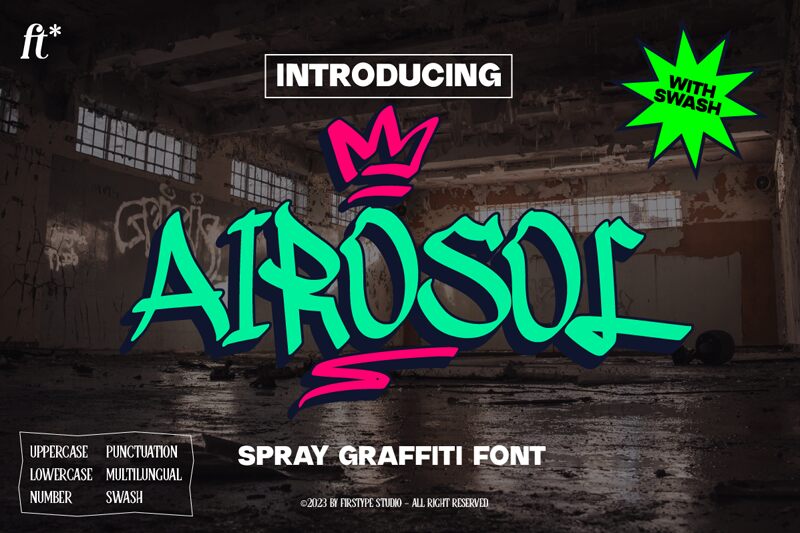
Airosol font by Firstype Studio is a free graffiti-inspired font with an energetic urban style. Its design draws strong influences from urban contemporary culture where vibrant colors and dynamic shapes lead the way. Edgy and expressive, the font masters irregular electric shapes that carry a youthful, nonconforming artistic aura that can be associated with street art influences.
Airosol will carry the message of all brands that wish to elevate their voice to the youth and communicate in their language. This includes sports teams, inclusive gatherings, shoes, accessories, summer festivals, and fun youth activities. Posters, signage, and brochure headings are all places where it can be used with effect.
Introducing Airosol, a spray graffiti font that exudes strength and character. Its unique design features playful kinks that enhance its charm, making it not only visually appealing but also functional.
Airosol is perfect for headlines and titles while maintaining excellent readability in sentence form. This free font is ideal for branding, packaging, books, invitations, and any casual setting where a touch of personality is desired without appearing overly childish.
The Airosol font family includes:
- One heavy, thick uppercase and lowercase
- Numbers
- Punctuation & Symbols
- Western European characters
- Central European characters
- Southeast European characters